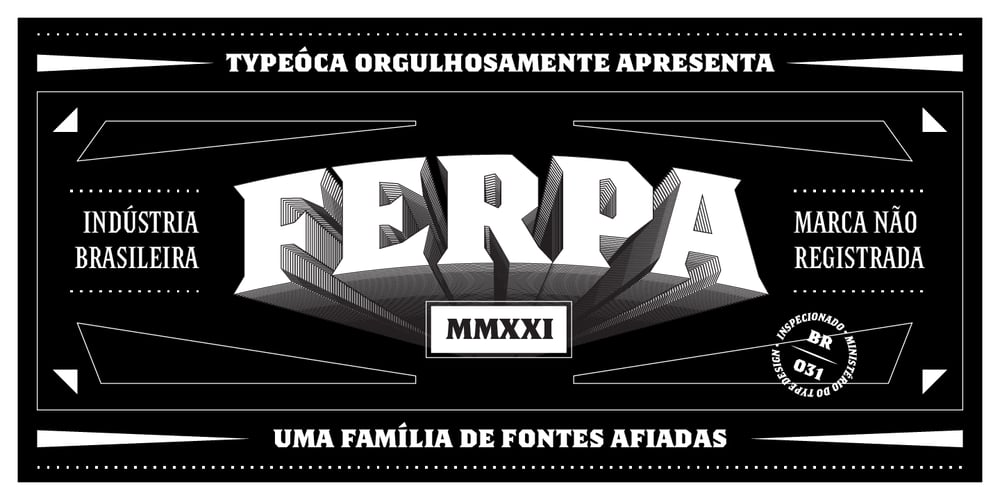
Ferpa Font Family was designed by Gabriel Figueiredo and published by Typeóca. Ferpa contains 18 styles and family package options. Ferpa is Typeóca’s Fierciest Font Family. Drawn using only straight lines, Ferpa uses every kink, every kink and every serif as an opportunity for expressivity.From Thin to Black in both Roman and Italic constructions, Ferpa is available as 18 otf static font files, with a character set that goes a little beyond Latin Extended A.